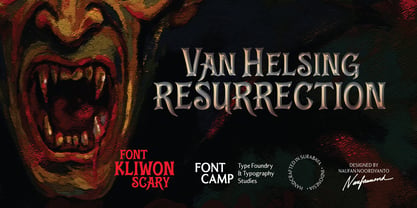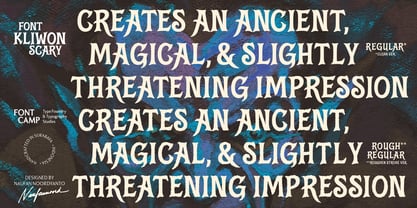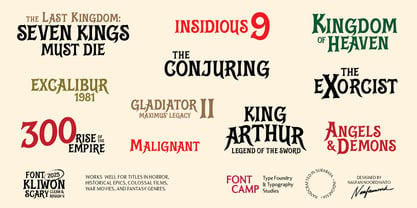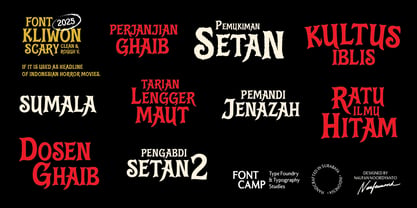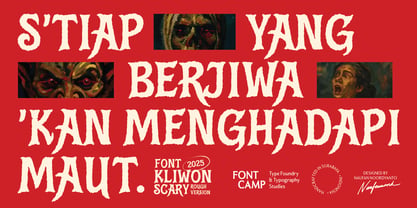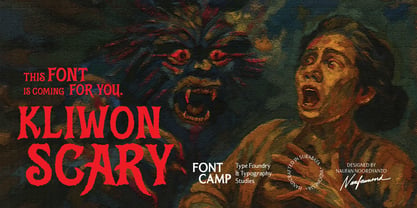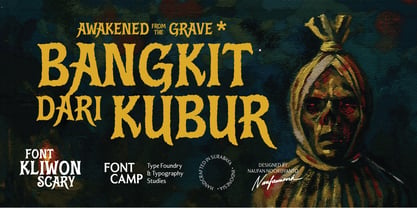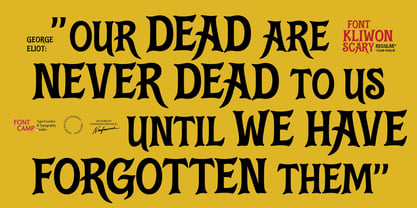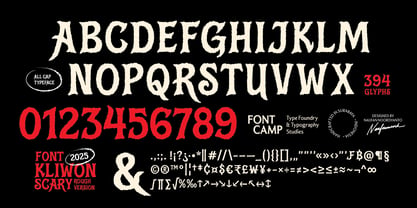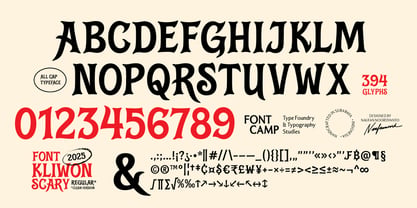
Kliwon Scary
by Fontcamp
The Kliwon Scary Font Family was designed by Naufan Noordyanto and published by Fontcamp. Kliwon Scary contains 2 styles and family package options.
Introducing a "Kliwon Scary" font. DESCRIPTION: "Kliwon Scary," a font named after the mystical Javanese (indonesian) calendar day "Kliwon," evokes a dark and mysterious atmosphere. Featuring thick strokes, sharp, eerie endings, this font creates an ancient, magical, and slightly threatening impression, ideal for horror and dark fantasy themes. METADATA: Font Name: Kliwon Scary (Regular & Rough Regular); Style: Regular (clean stroke version) and Rough Regular (a regular font with a rough stroke); Features: 394 Glyphs; 86 languages (including diacritics); All Caps. Version1.000, released on 2025. CREDIT: Designer: Naufan Noordyanto; Kerning: Naufan Noordyanto; Manufacturer: Fontcamp Type Foundry. We craft and distribute fonts and custom typography. We foster typographic appreciation through design exhibitions, publications, and education. Fontcamp Type Foundry - Crafted in Indonesia. Tag or mention us on Instagram @itsfontcamp and @naufannoord — we’d love to see how you use Kliwon Scary!
Designers: Naufan Noordyanto
Publisher: Fontcamp
Foundry: Fontcamp